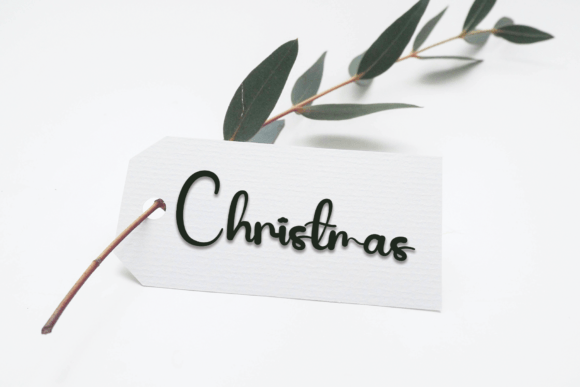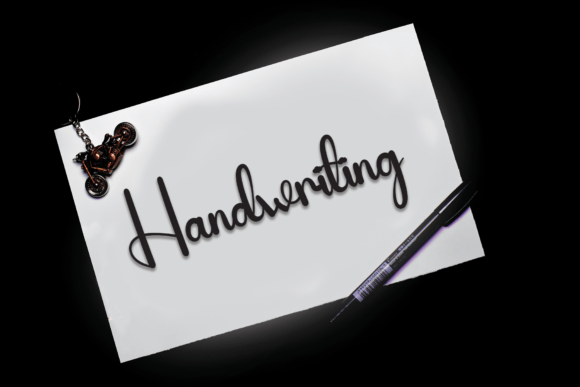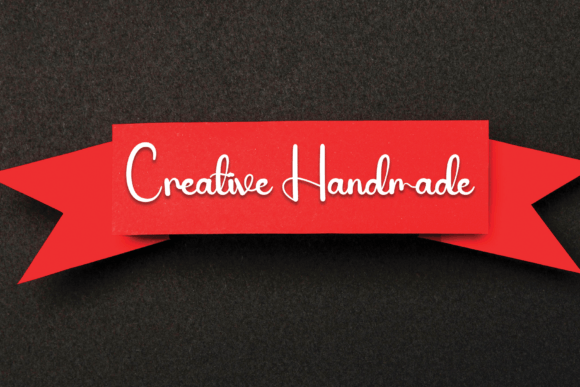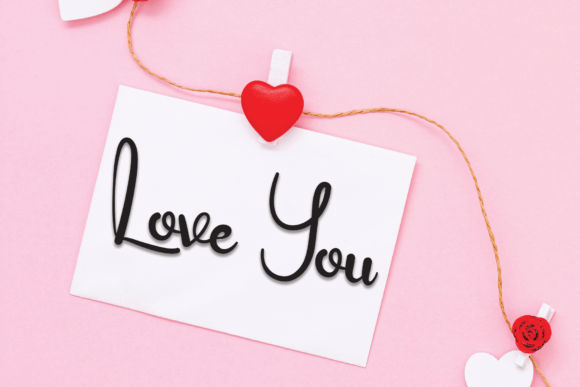
The Boho Chic of Typography
There’s something magical about sitting at your desk, surrounded by scraps of paper, glue, and colorful pens. The creative juices are flowing, and you’re in the zone. You’re about to create something special – a handmade card for a loved one, a customized gift tag, or perhaps a beautiful piece of art for your living room. Whatever the project, the right font can make all the difference.
That’s where the Boho Font comes in – a simple, friendly handwritten font that’s perfect for crafting, digital design, presentations, and more. With its unique, free-spirited charm, this font is sure to add a touch of personality to any project. Whether you’re a seasoned designer or a DIY enthusiast, the Boho Font is a valuable addition to your creative toolkit.
Key Features of Boho Font
- Unique Characteristics: This font features a bohemian-inspired design with intricate details, swashes, and flourishes, giving it a unique and elegant look.
- Language Support: Boho Font supports a wide range of languages, including Latin, Cyrillic, and Greek alphabets, making it suitable for international designs.
- Font Style: Boho Font is available in 3 font styles: Regular, Italic, and Bold, providing flexibility in design applications.
Boho Font Review
I was excited to dive into the Boho Font, but my initial enthusiasm quickly turned into a mixed bag of feelings. On the positive side, the font’s ✨ eclectic vibe ✨ definitely catches the eye. It’s perfect for those who want to add a touch of bohemian flair to their designs.
The font’s ✨ flexibility ✨ is another strong point. It works well in a variety of contexts, from titles and headings to body text and social media graphics. I also appreciate the ✨ high-quality vector files ✨ that come with the font, making it easy to scale and manipulate the characters.
However, there are some limitations that prevent me from giving the Boho Font a full thumbs up. Here are a few things to keep in mind:
- ⚠️ Limited character set: The font’s character set is somewhat limited, which can make it difficult to use for longer blocks of text.
- ⚠️ Not ideal for small text: The font’s unique design can make small text difficult to read, which may be a problem for certain applications.
- ⚠️ Some characters may require manual tweaking: A few of the characters, such as the ‘g’ and ‘j’, may require manual tweaking to get them looking just right.
Overall, the Boho Font is a fun and creative addition to any design arsenal. While it may have its limitations, it’s perfect for those who want to add a touch of personality to their designs. Just be sure to use it wisely and take advantage of its flexibility to get the most out of it.
Boho Font is ideal for creating eclectic and bohemian-inspired designs, such as:
- Boutique websites and e-commerce platforms
- Artistic and creative portfolios
- Travel and lifestyle blogs
- Free-spirited event invitations and promotional materials